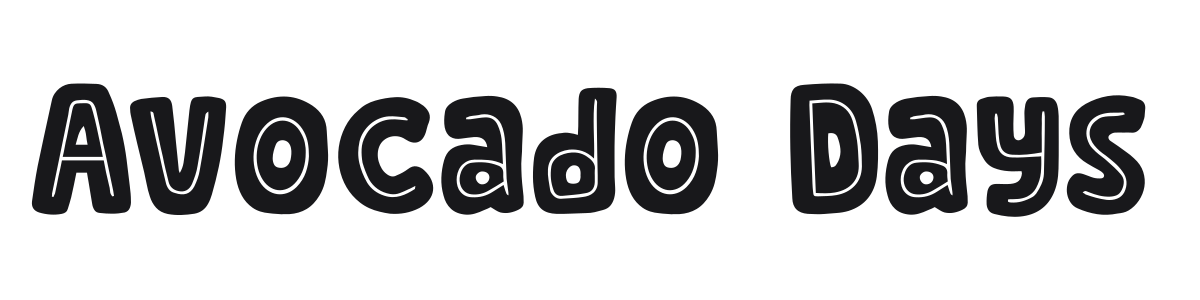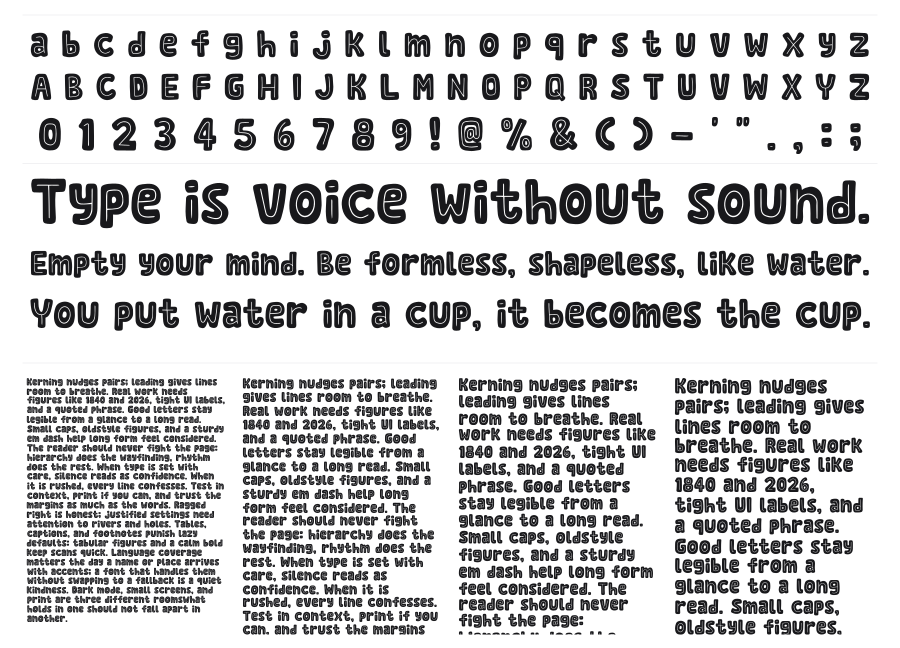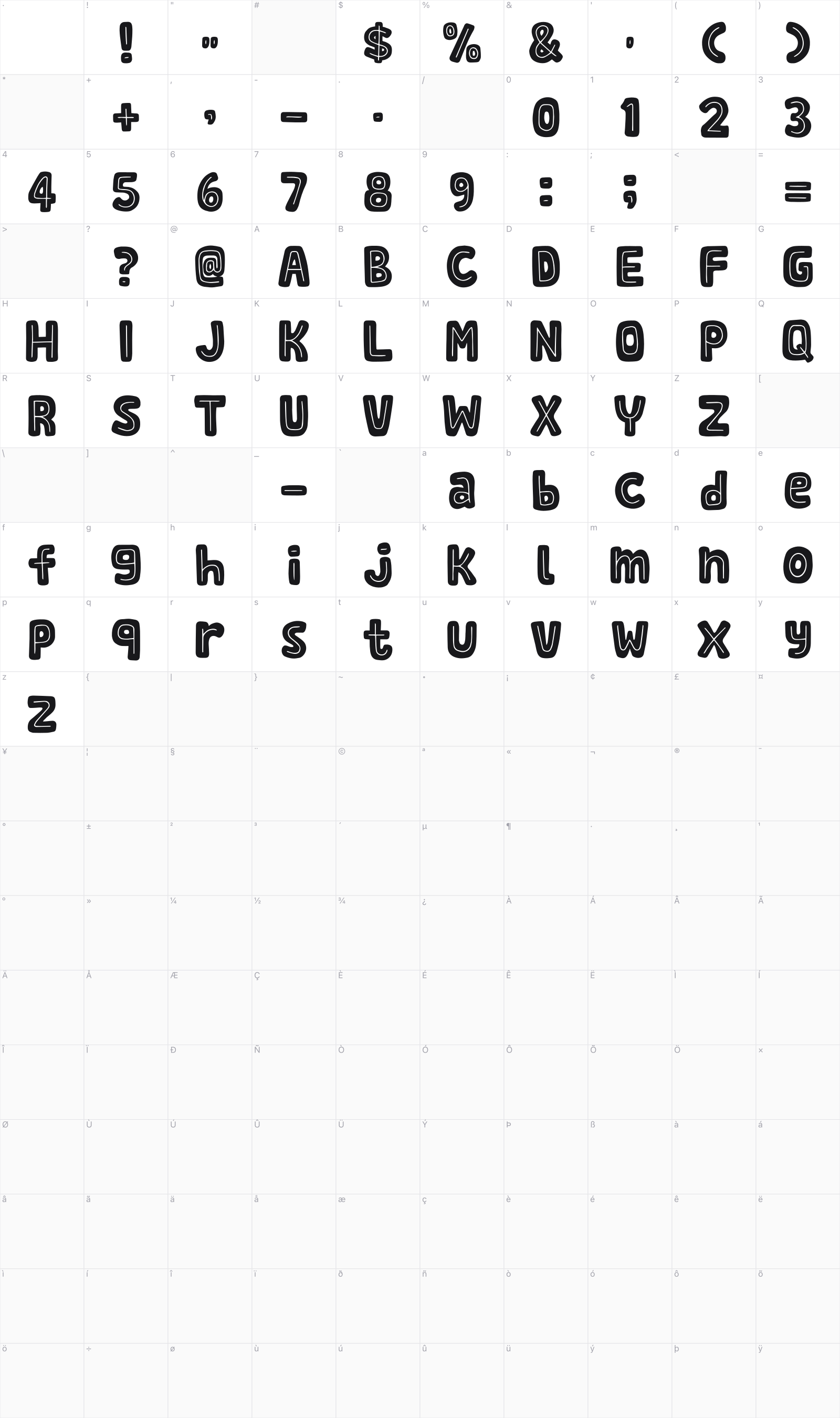
Avocado Days
Avocado Days is a bold rounded display font with a built-in inline stroke that gives every letter a bubbly, inflated look. The chunky double-outline construction and softly curved terminals make it feel hand-lettered without losing legibility at large sizes. It carries a casual, good-natured energy that works naturally for food branding, kids' products, and anything that needs a lighthearted personality.